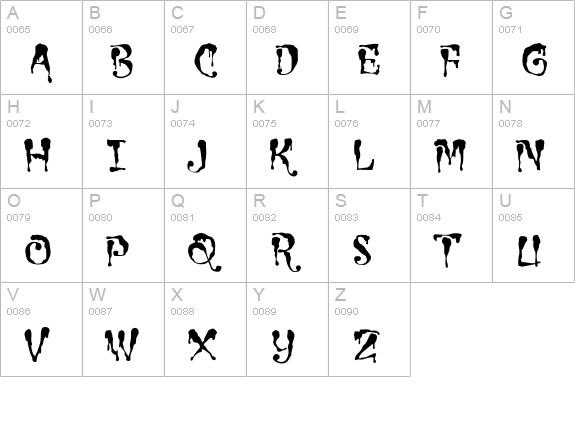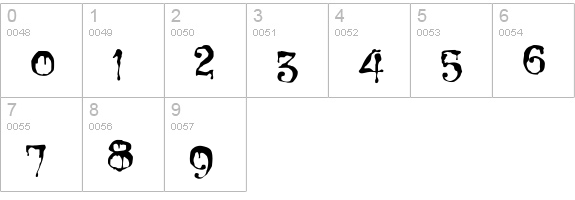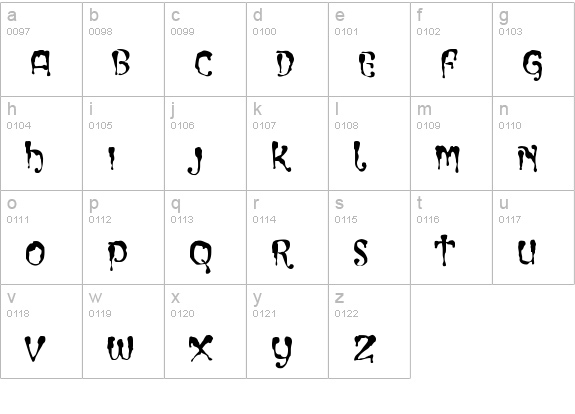
CCIncyWincySpider Font Details
CCIncyWincySpider font is a whimsical and playful typeface that will add a touch of fun to any design project. With its quirky spider web-inspired letterforms, this font is perfect for creating eye-catching headlines, posters, invitations, and more. Whether you're working on a Halloween-themed project or just want to inject some personality into your designs, CCIncyWincySpider is sure to make a statement. Best of all, CCIncyWincySpider font is completely free to download at FontsMarket.com. So go ahead and add this unique and creative font to your collection today!